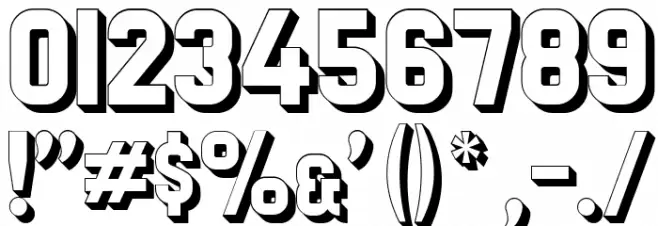
Preussische VI 9 Schatten Font
Preussische VI 9 Schatten Description
This font features a bold, three-dimensional shadow effect that gives it a striking and impactful appearance. The uppercase and lowercase letters are designed with a strong geometric structure, providing a sense of stability and modernity. The numbers and special characters maintain the same bold style, ensuring consistency across all elements. The shadow effect adds depth, making the characters stand out prominently against any background. This font is ideal for creating eye-catching headlines or titles that require a sense of boldness and presence.
A bold, three-dimensional font with a strong geometric structure and shadow effect from Uncategorized fonts.
- Proposed Projects: Ideal for posters, logos, headlines, and any design requiring a bold, impactful presence.